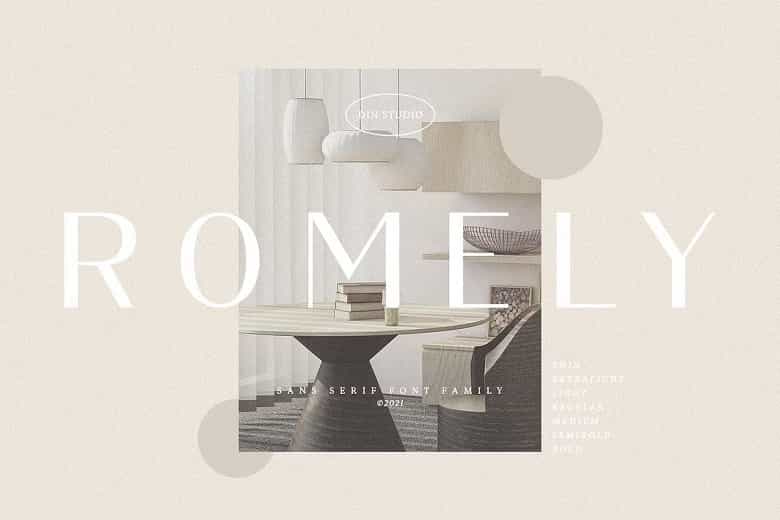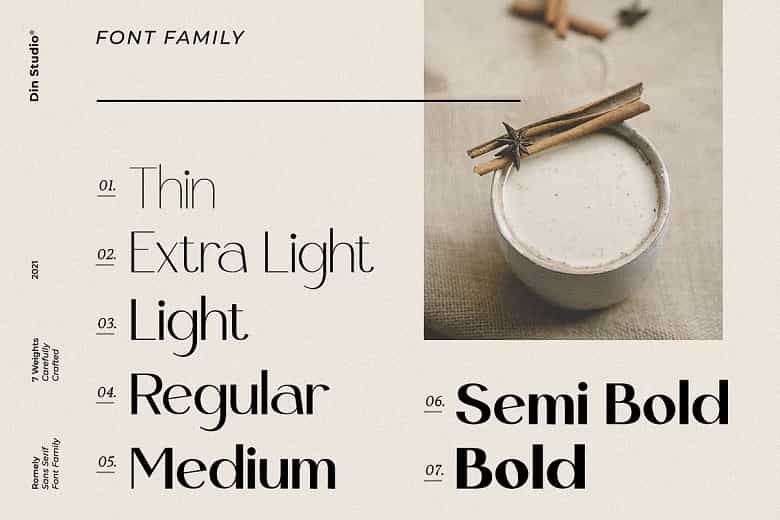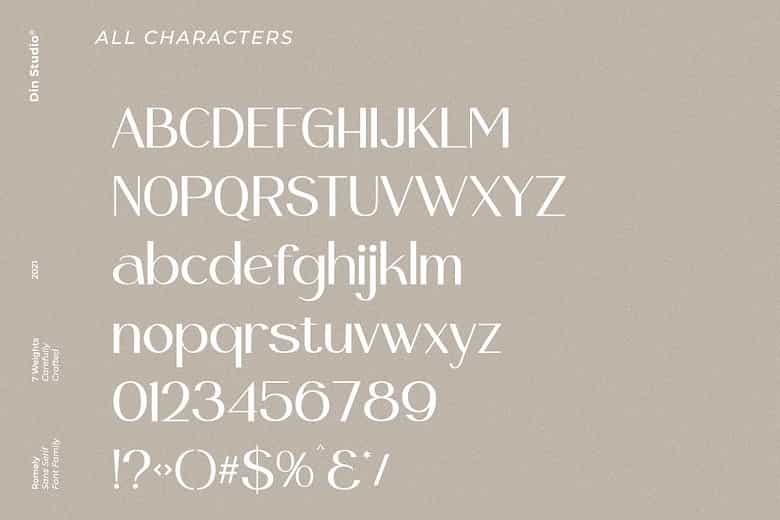
Romely is a modern sans serif font. Romely is suitable for any design projects, for example for posters, banners, logos, book covers, album covers, quotes, invitations, greeting cards, name cards, headings, printed products, merchandise, social media etc.